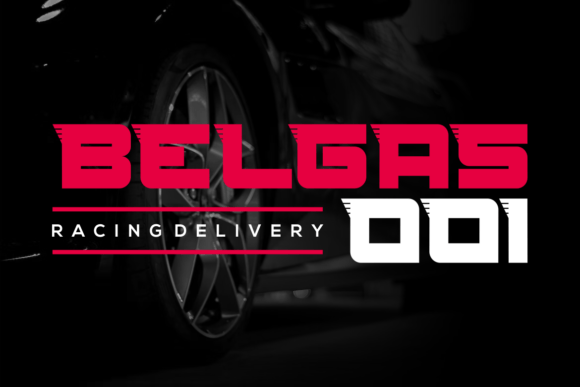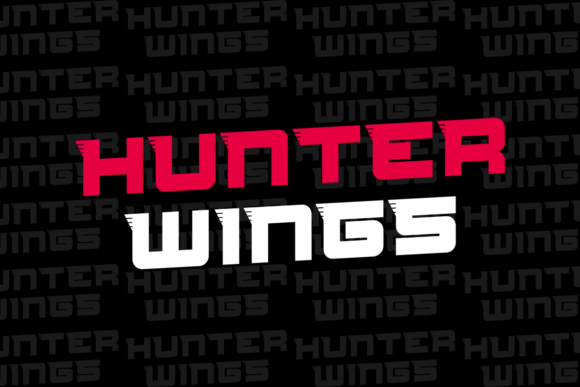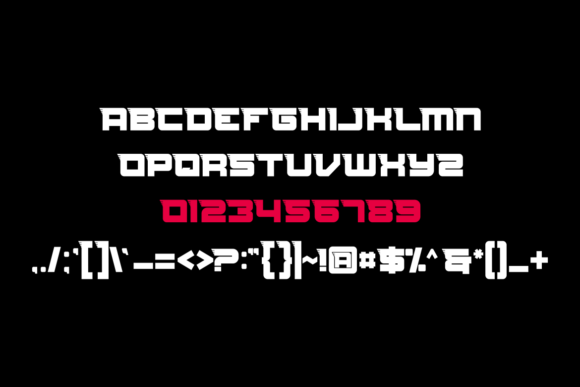
Introduction to Hunterwings Font
Imagine you’re brainstorming ideas for your next creative project, and you stumble upon the perfect font to elevate your design. The thrill of discovery is exhilarating, and it’s exactly what designers experience when they come across the Hunterwings Font. This modern, bold display font is a game-changer for any branding project, from logos to t-shirt printing, and even esports.
As a valuable design resource, Hunterwings Font stands out in a wide range of contexts, making it an excellent choice for designers seeking high-quality fonts with a transparent background. With its versatility and unique character, this font is perfect for designers who want to add an extra layer of creativity to their projects. And the best part? It’s available for free download, making it an accessible and exciting option for designers of all levels.
Key Features of Hunterwings Font
- High-quality design resource suitable for creative projects, including logos, branding, and typography.
- Features a unique, modern design with a transparent background, allowing for seamless integration with various backgrounds.
Honest Review: Hunterwings Font
As a designer, I’m always on the lookout for high-quality design resources to elevate my creative projects. Recently, I stumbled upon the Hunterwings Font, and I must say, it’s a game-changer.
Here are some things that work well about this font: ✨ High-quality typography that’s perfect for titles and headings. ✨ A transparent background makes it easy to customize and integrate into any design. ✨ The font is free to download, which is a huge plus for designers on a budget.
However, there are a few limitations to consider: ⚠️ The font might be a bit too ornate for simple text-based projects. ⚠️ Some users may find the font difficult to read at smaller font sizes.
Overall, I’m really impressed with the Hunterwings Font. Its unique design and high-quality typography make it a great addition to any creative project. Whether you’re designing a logo, brochure, or website, this font is sure to impress.
- High-quality typography
- Perfect for titles and headings
- Ornate design
The Hunterwings Font is a high-quality, free download font that offers a unique and creative design element for any project. With its transparent background, it’s perfect for adding a touch of elegance to your design.
To get the most out of the Hunterwings Font, experiment with different font sizes, colors, and styles to create a unique and eye-catching design. You can also use the font in combination with other design elements to create a cohesive look.
Common Use Cases for Hunterwings Font
The Hunterwings Font is perfect for use in creative projects, such as invitations, posters, and social media graphics. It’s also great for use in business projects, such as presentations and reports, where a touch of elegance is needed.